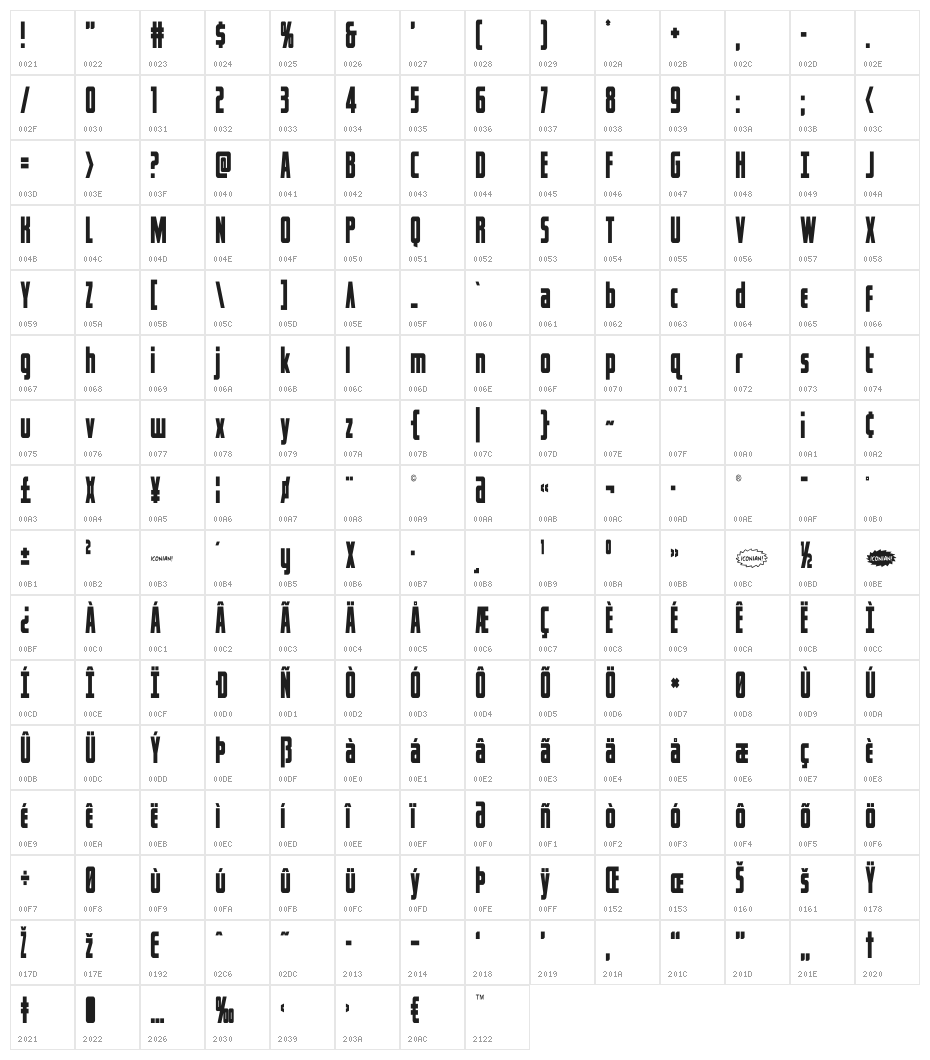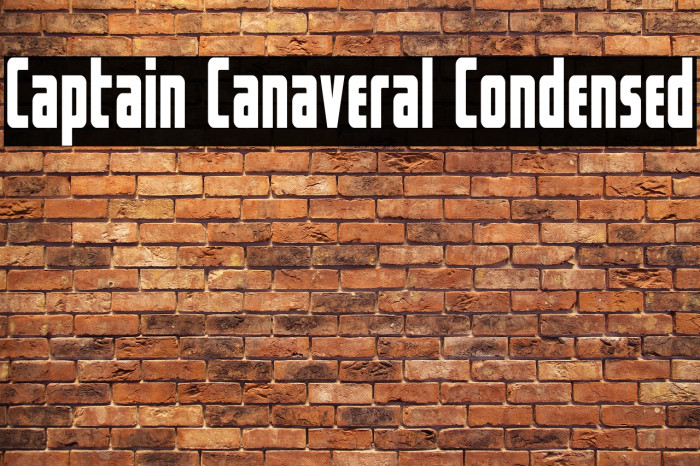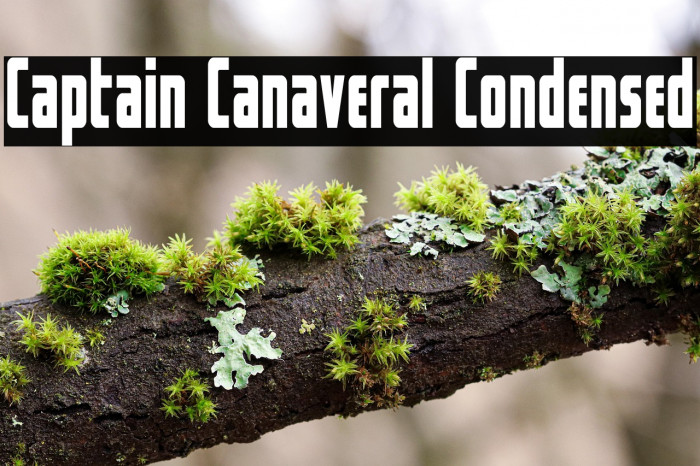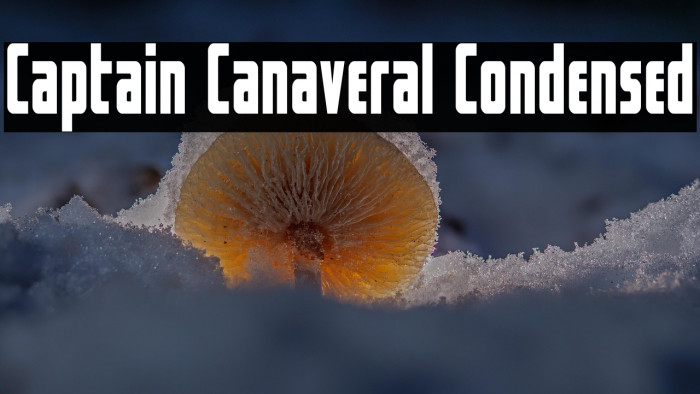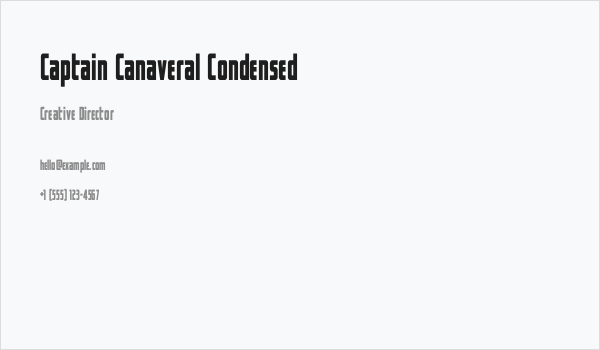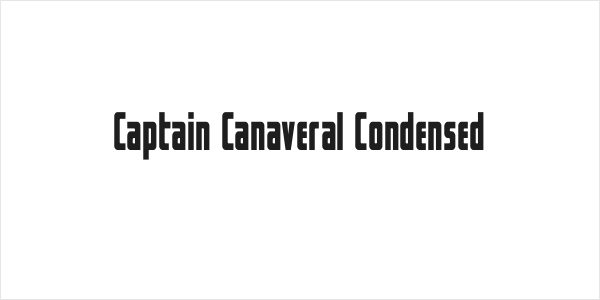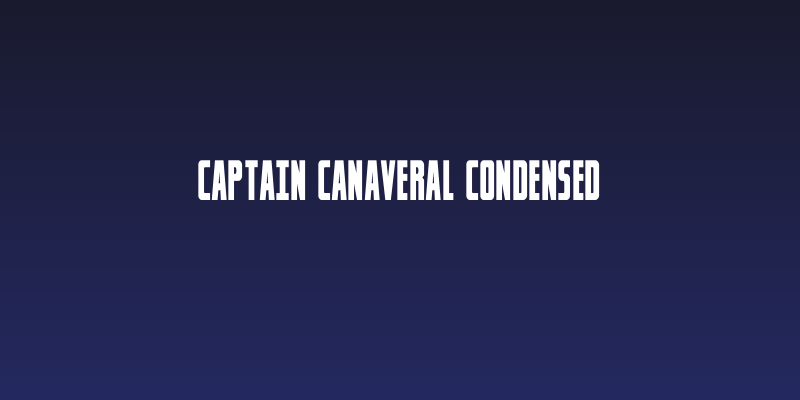
Captain Canaveral Condensed Font
Captain Canaveral Condensed Description
This font features a bold and condensed style, characterized by its strong vertical emphasis and minimal spacing between characters. The uppercase letters are tall and commanding, while the lowercase letters maintain a consistent height, contributing to a uniform appearance. The numerals are equally bold, ensuring readability and impact. The special characters are designed to match the overall robust aesthetic, making them suitable for attention-grabbing displays. The font's condensed nature allows for efficient use of space, making it ideal for headlines and titles where space is limited but impact is necessary.
| Proposed Projects | Ideal for posters, headlines, logos, and branding materials that require a strong visual impact. |